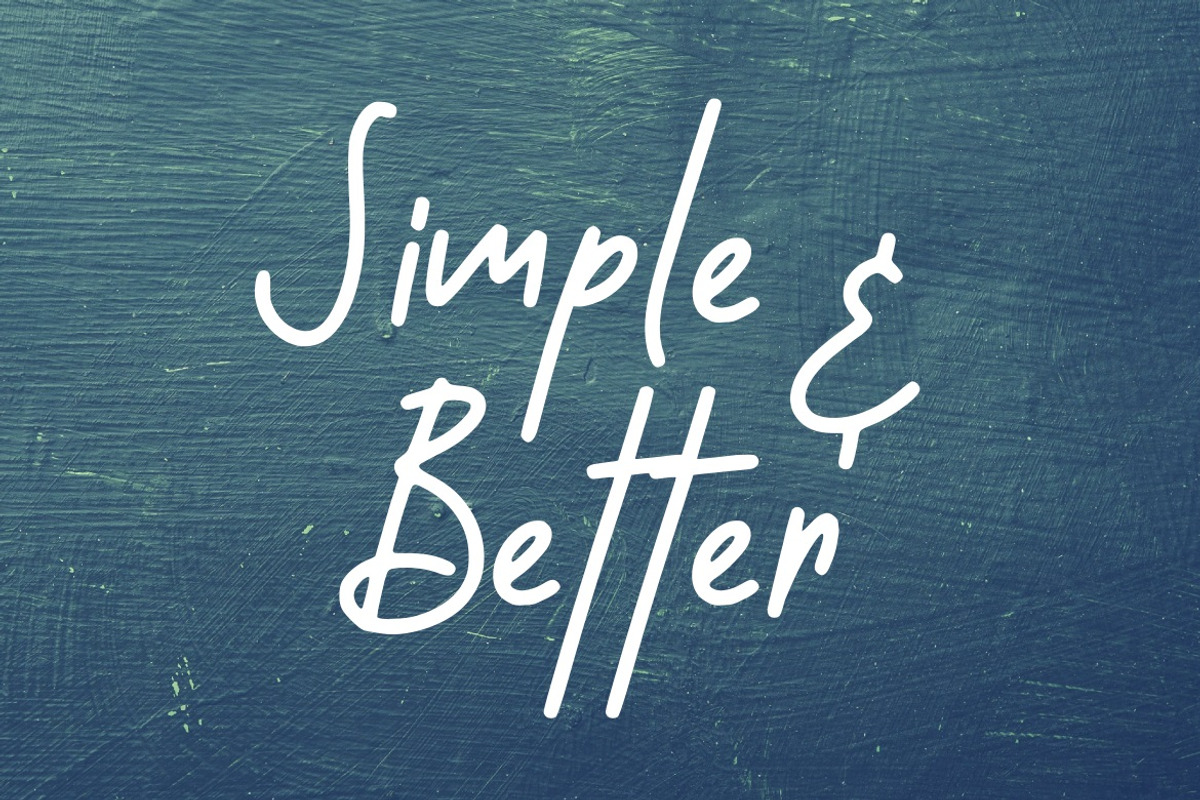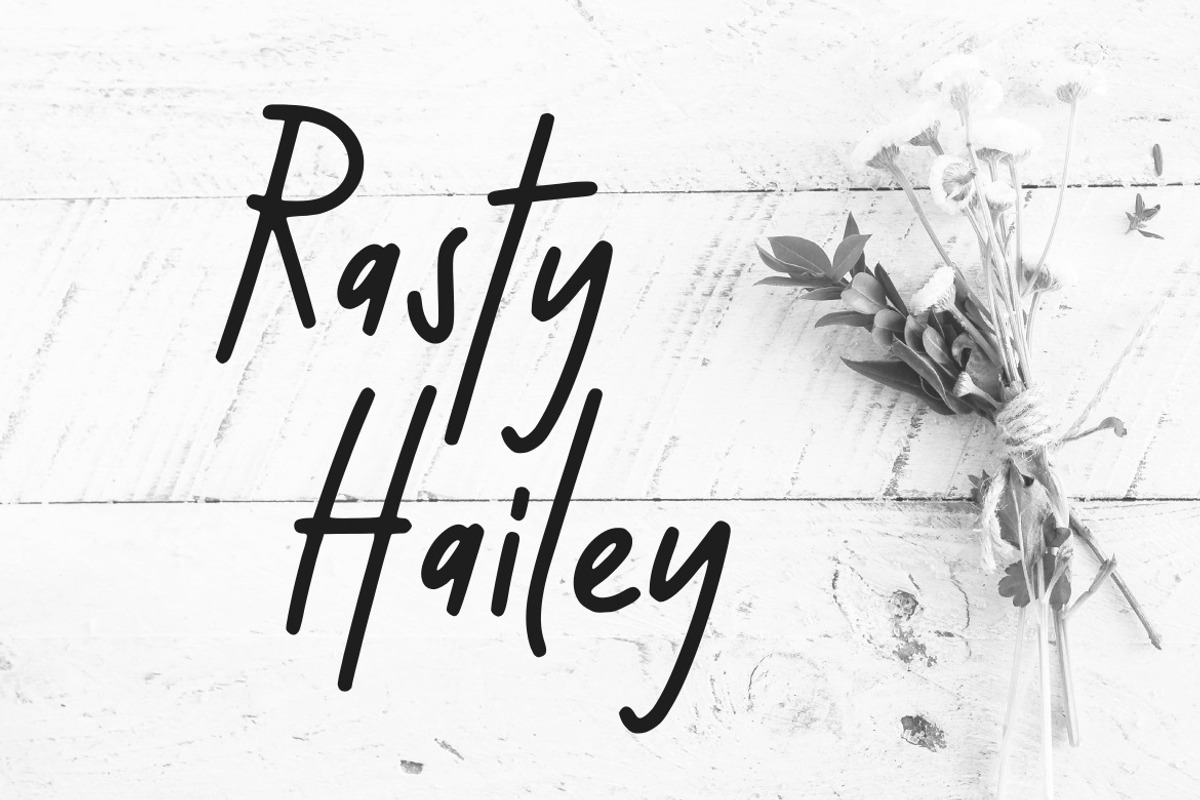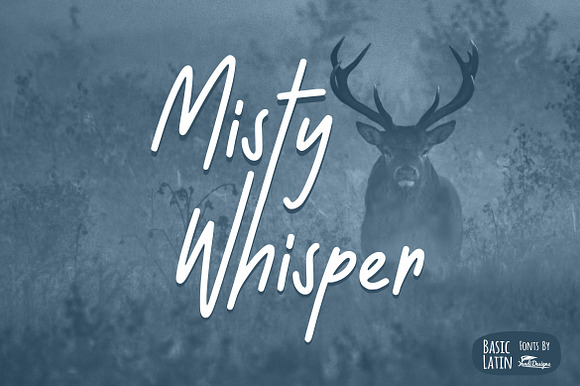
Misty Whisper Font
Simple and fun script , suitable for many project , quotes, logo , doodle, heading , title etc.
Basic Latin (Standard English character , number, punctuation)
Why Misty Whisper Font is worth a look
Misty Whisper Font by YandiDesigns fits naturally into Branding, posters, packaging, typography.